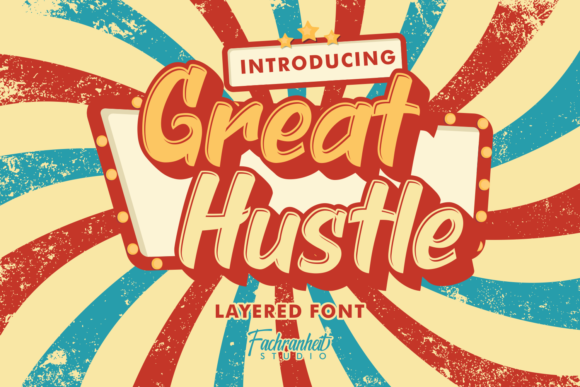
The Birth of a Creative Moment
You know that moment when you’re brainstorming ideas, and suddenly, everything clicks into place? You see it all – the colors, the typography, the textures. For designers, this moment is the spark that ignites a project. It’s the moment when the ordinary becomes extraordinary, and that’s exactly what the Great Hustle Font is designed to do.
With its vintage and unique display style, the Great Hustle Font is perfect for making a statement. Whether you’re working on a web project, print material, or even moving images, this font is sure to add a touch of sophistication and elegance. Its versatility makes it a valuable asset for designers who want to take their projects to the next level.
Great Hustle Font Key Features
- Font Style: Script font with a modern, energetic feel
- Unique Characteristics: Dynamic swashes, connecting letters, and a wide range of language support
Designer Review: Great Hustle Font
Overall, I’d say the Great Hustle Font is a solid addition to any designer’s toolkit, but it’s not without its quirks. Let’s start with the good stuff!
- ✨ Great energy: This font exudes a sense of dynamism and enthusiasm, perfect for headlines and titles that need to grab attention.
- ✨ Friendly feel: The rounded edges and approachable aesthetic make it suitable for body text and even children’s content.
- ✨ Customization options: The font comes with a range of weights and styles, allowing for a decent amount of flexibility in terms of design.
Now, onto the not-so-good stuff:
- ⚠️ Limited legibility: At smaller sizes, the font can become a bit too condensed, making it tricky to read. This is particularly noticeable in body text.
- ⚠️ Limited international support: The font doesn’t include a wide range of language-specific characters, which may be a concern for designers working with non-English content.
Overall, I’d give the Great Hustle Font 3.5 out of 5 stars. While it’s not perfect, its unique energy and customization options make it a great choice for designers looking to add some personality to their projects.
Tips for Getting the Most Out of Great Hustle Font
To get the most out of Great Hustle Font, use it for headings and titles to add a touch of modernity to your designs. Experiment with different font sizes and colors to create a visually appealing effect.
Great Hustle Font is perfect for creative and modern designs, such as:
- Web design and landing pages
- Social media graphics and posts
Alternatives to Great Hustle Font
Montserrat is a sans-serif font that is highly legible and versatile. It is ideal for use in digital products, particularly in mobile applications and websites. Montserrat is similar to Great Hustle Font in its modern and clean design, but it has a more geometric and structured feel.
2. Inter
Inter is a sans-serif font that is highly customizable and versatile. It is suitable for use in a wide range of applications, including print and digital media. Inter has a similar feel to Great Hustle Font, but it has a more refined and sophisticated look.
Open Sans is a sans-serif font that is highly legible and versatile. It is ideal for use in digital products, particularly in websites and mobile applications. Open Sans is similar to Great Hustle Font in its clean and modern design, but it has a more rounded and friendly feel.
Lato is a sans-serif font that is highly customizable and versatile. It is suitable for use in a wide range of applications, including print and digital media. Lato has a similar feel to Great Hustle Font, but it has a more elegant and sophisticated look.
3 Creative Project Ideas Using Great Hustle Font
Project 1: Digital Planner with a Touch of Whimsy
Create a unique digital planner that combines the Great Hustle Font with playful illustrations and colorful backgrounds. The font’s energetic vibe pairs perfectly with fun doodles and motivational quotes.
Q: What is the recommended font size and line height for the Great Hustle Font?
We recommend using a font size between 12 and 18 points for body text, with a line height of at least 1.2 to 1.5 times the font size. This will ensure optimal readability and visual appeal. You can adjust these settings to suit your design needs and preferences.